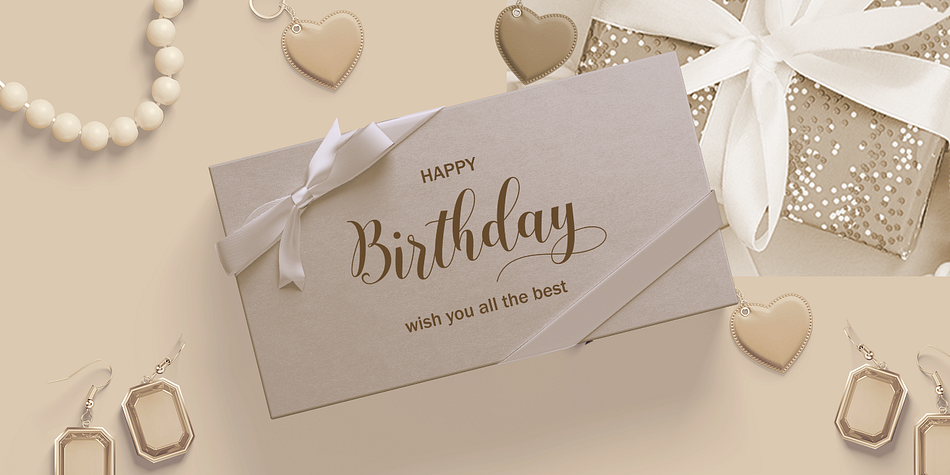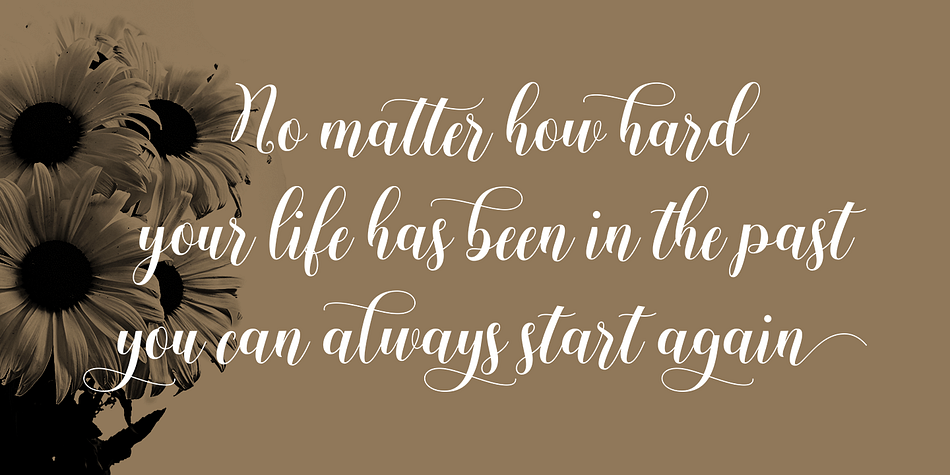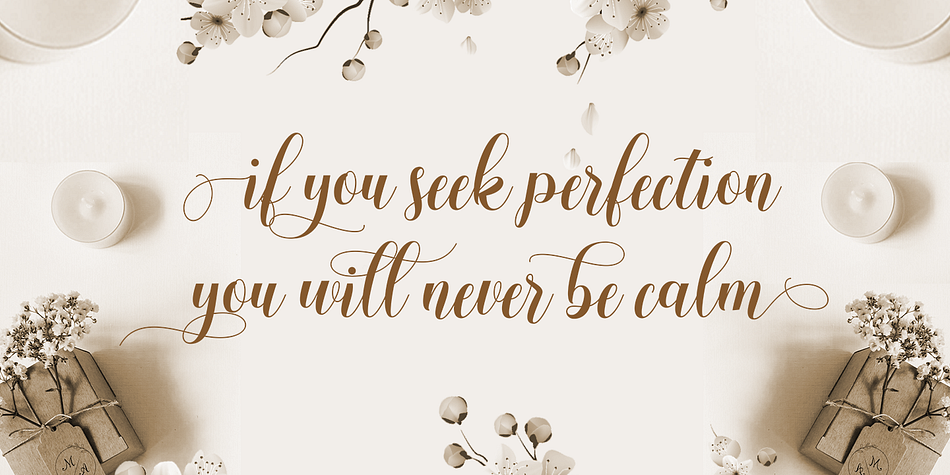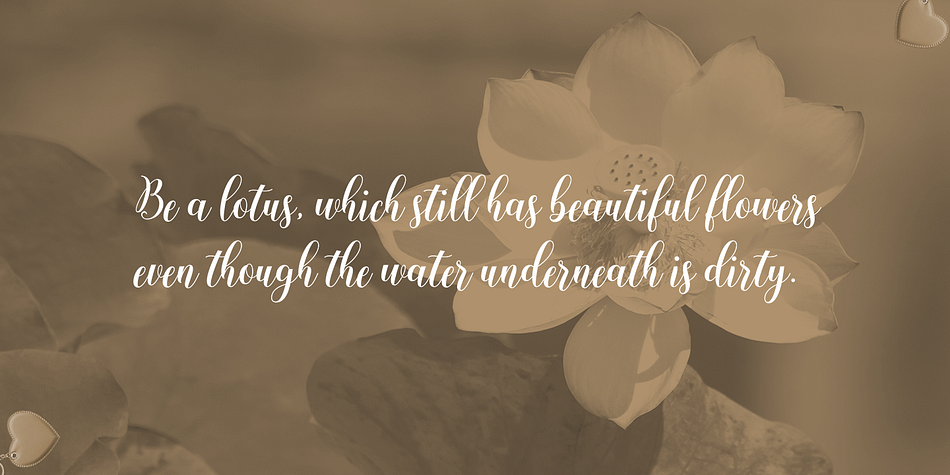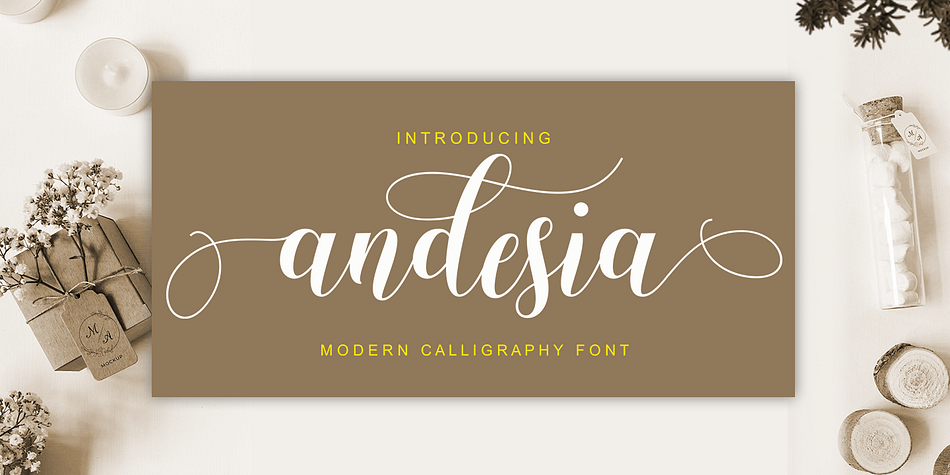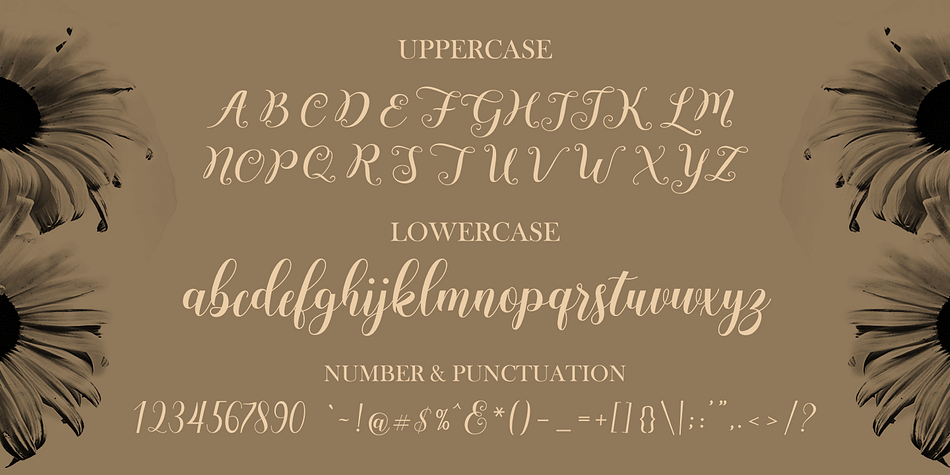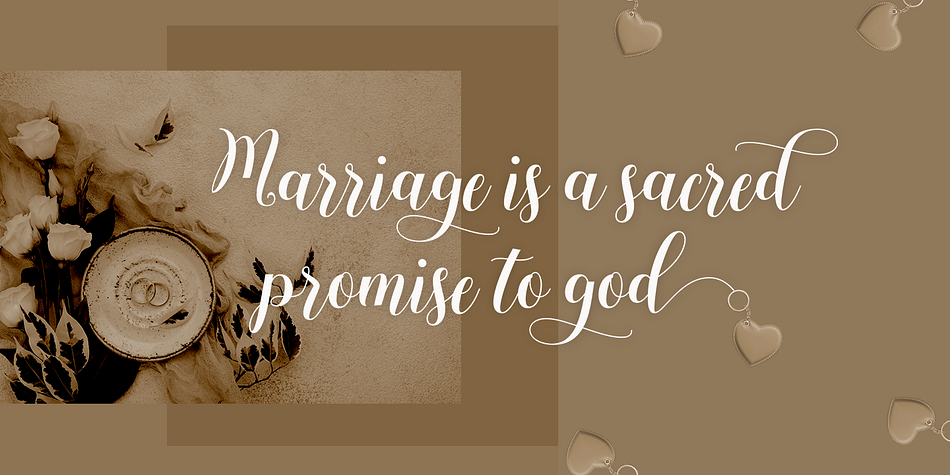
Andesia
Andesia is a modern calligraphy font family published by Gatype.
Andesia Script is soft and sweet calligraphy typeface, with characters dance along the baseline. It has a casual and elegant touch. Can be used for various purposes.such as logos, wedding invitation, heading, t-shirt, letterhead, signage, lable, news, posters, badges etc.
OpenType features with stylistic alternates, ligatures and multiple language support.